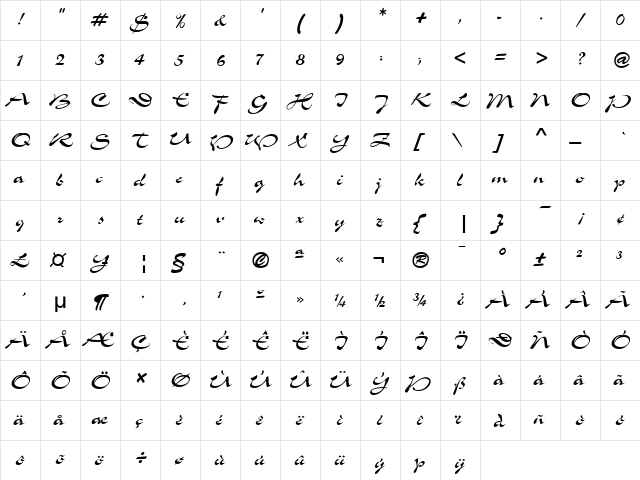
Slogan Normal Font Preview
Slogan Normal
Slogan Normal Font Details
Design Context for Slogan Typeface
Slogan is a composed and adaptable typeface that performs quietly and consistently across a wide range of design contexts.